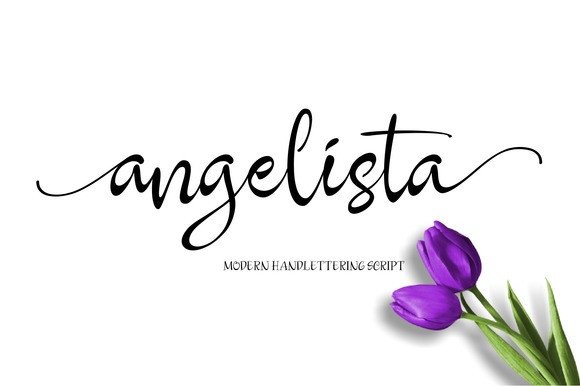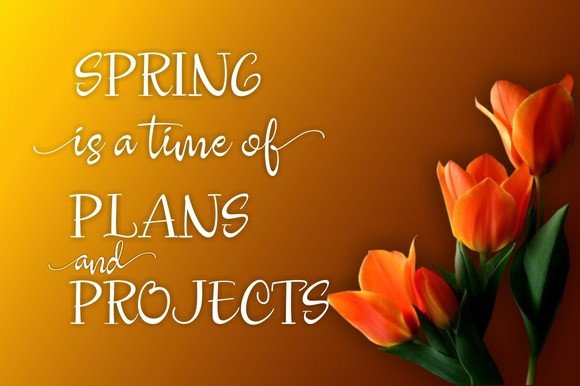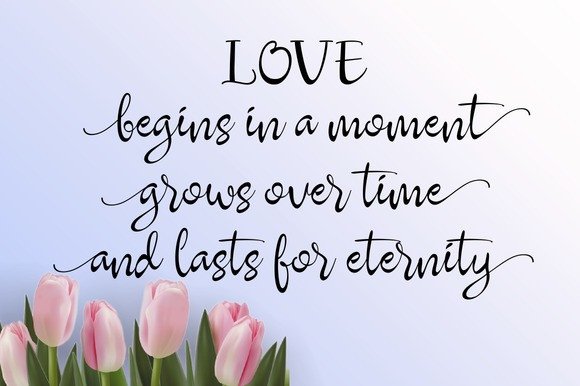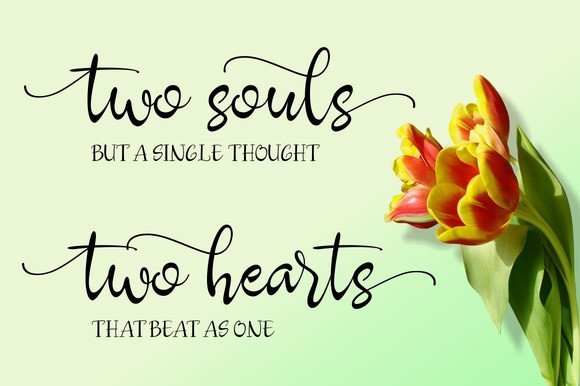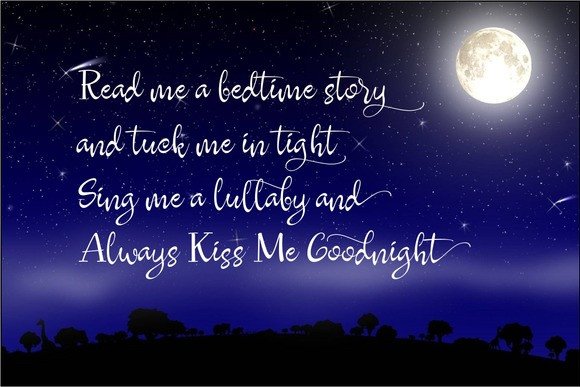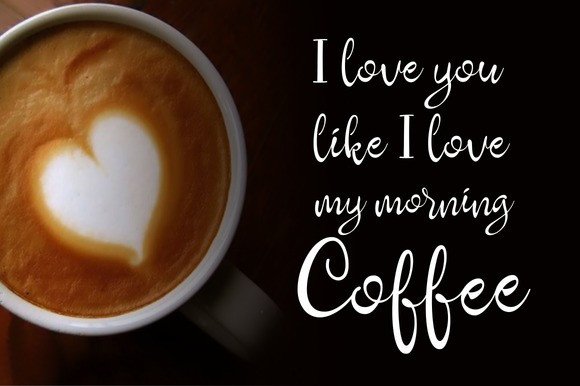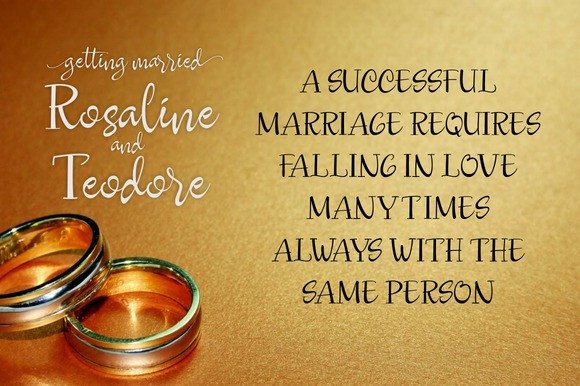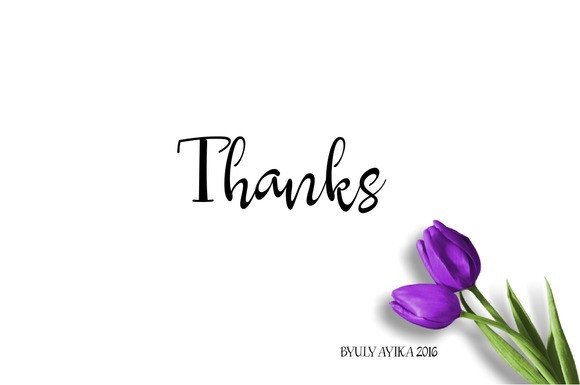
Angelista Font
About Angelista Font
Angelista is a beautiful handwritten font with over 250 handcrafted glyphs.
This fresh font is very versatile and has smooth curvy letters. Angelista is perfect for cards, invites, thank you notes and much more!